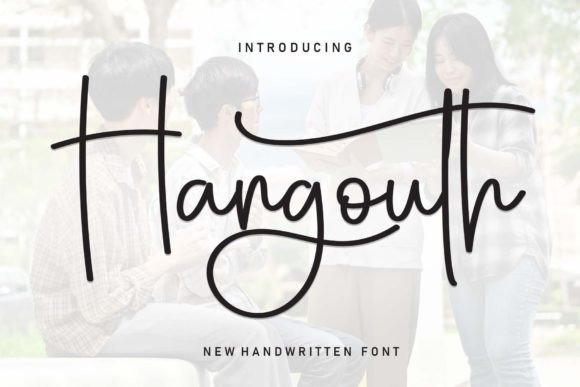
Introducing Hangouth Font, the ultimate script font that will take your designs to new heights! Created by Misterletter.co, this flowing handwritten font is the epitome of elegance and sophistication. If you're looking for the best fonts for website design, look no further than Hangouth Font.
With its incredibly distinct and timeless style, Hangouth Font will captivate your audience from the moment they lay eyes on your designs. Its graceful curves and delicate strokes bring a sense of warmth and personalization to any project. Whether you're designing a logo, website, or social media graphics, this font will elevate your creations to a whole new level.
Imagine the impact of a beautifully written quote in Hangouth Font on your website's homepage. It will instantly grab attention and create an emotional connection with your visitors. This font exudes a sense of creativity, authenticity, and professionalism that will leave a lasting impression on anyone who sees it.
But Hangouth Font is not just about aesthetics. It is also designed with functionality in mind. Its legibility ensures that your message is clear and easily readable, even at smaller sizes. This makes it perfect for body text, captions, and any other text-heavy elements you may have in your designs.
Let your imagination run wild with Hangouth Font. It pairs beautifully with other fonts and can be easily customized to suit your unique style and brand. Whether you're going for a modern and minimalist look or a vintage and nostalgic feel, this font will adapt effortlessly to your vision.
But don't just take our word for it. Join the countless designers and creatives who have fallen in love with Hangouth Font. Its versatility knows no bounds, making it suitable for a wide range of projects. From wedding invitations to product packaging, from social media graphics to fashion editorials, this font will add that extra touch of magic to your designs.